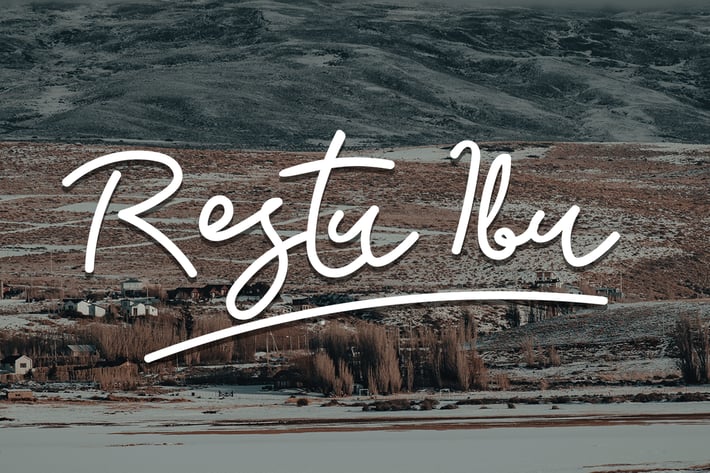
Restu Ibu - Script Font
Introducing Restu Ibu, a beauty and elegant script font. Its unique and lovely feel.
So perfect for you who needs a typeface for logo designs, magazine, social media, brochure, and many more.